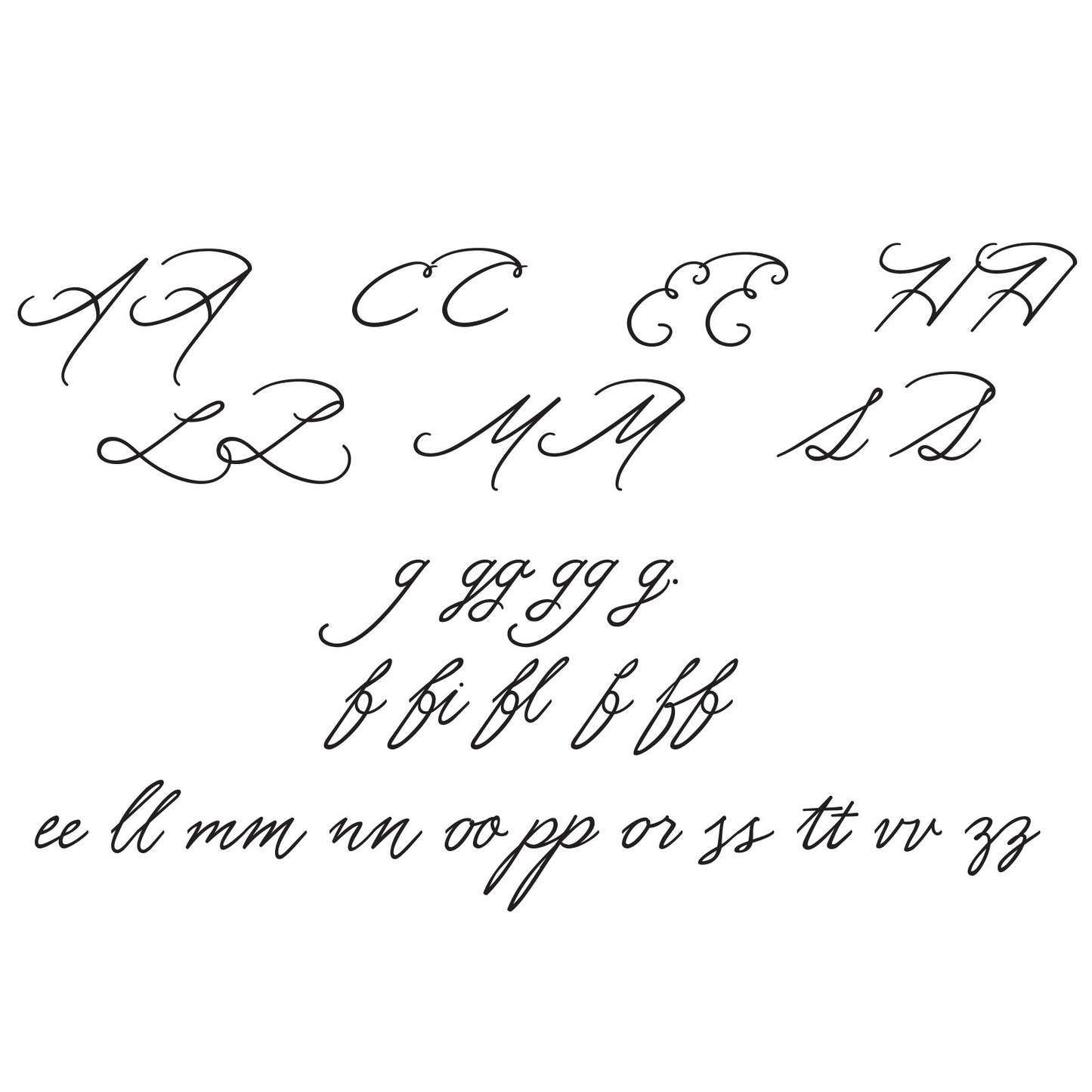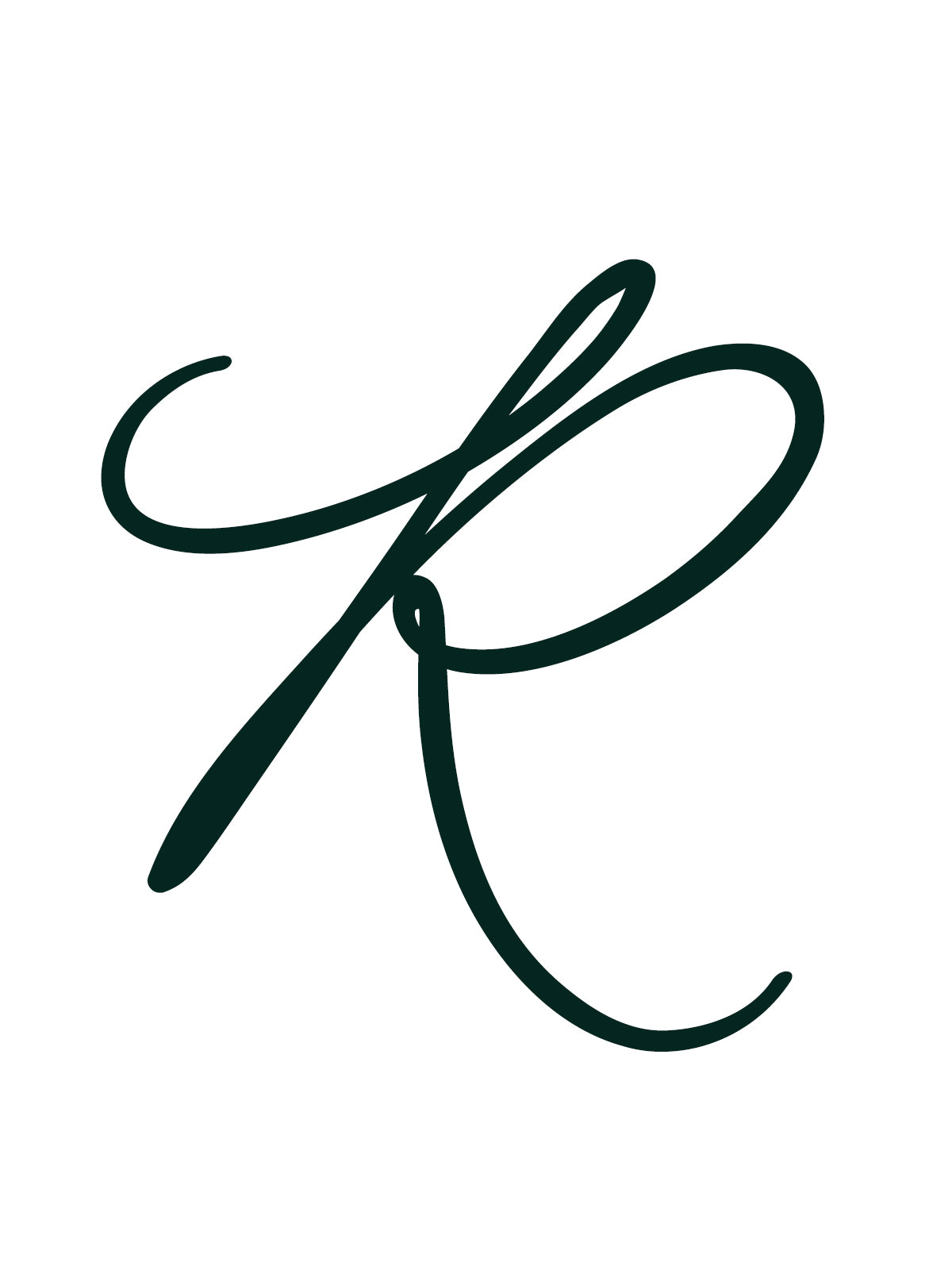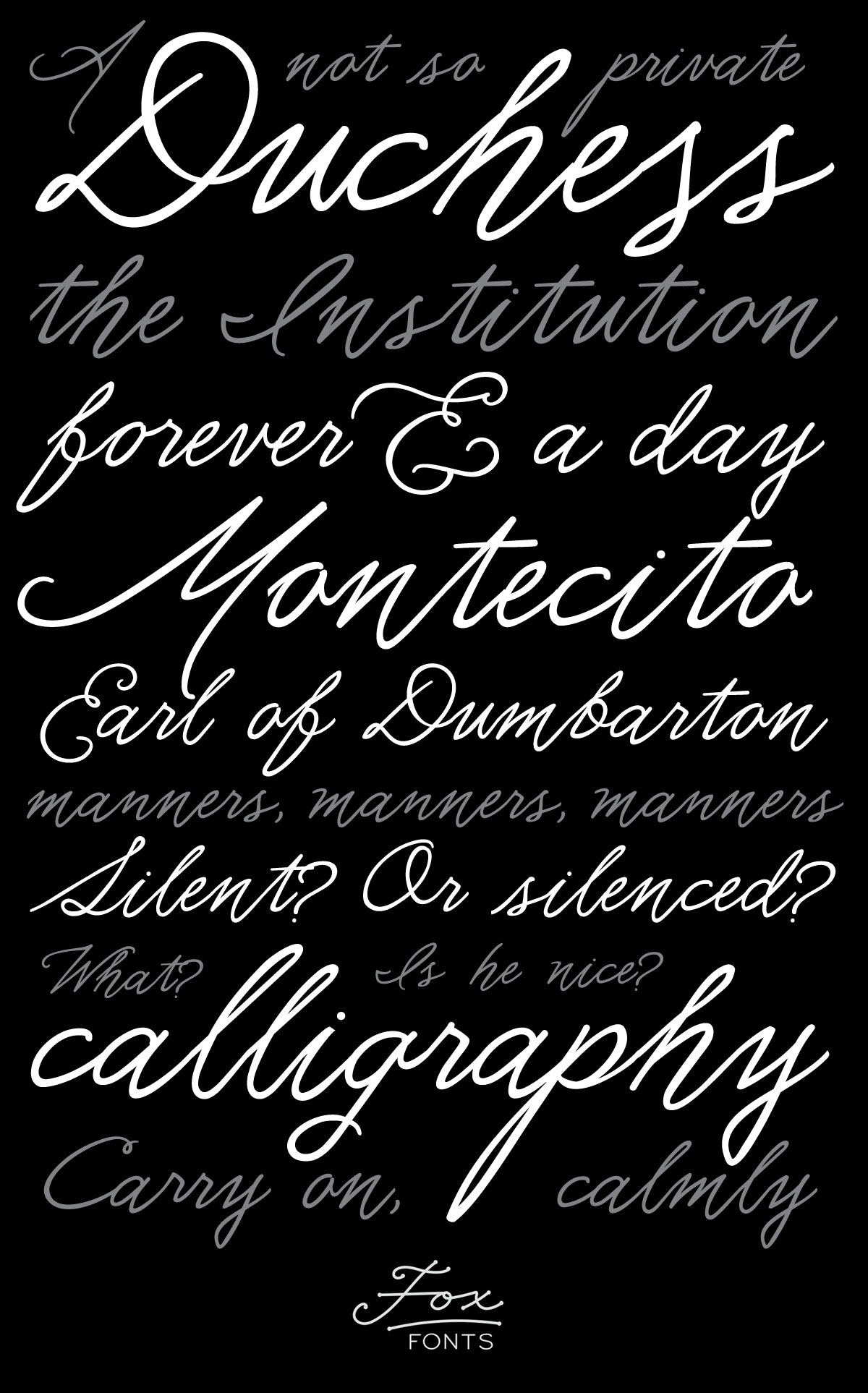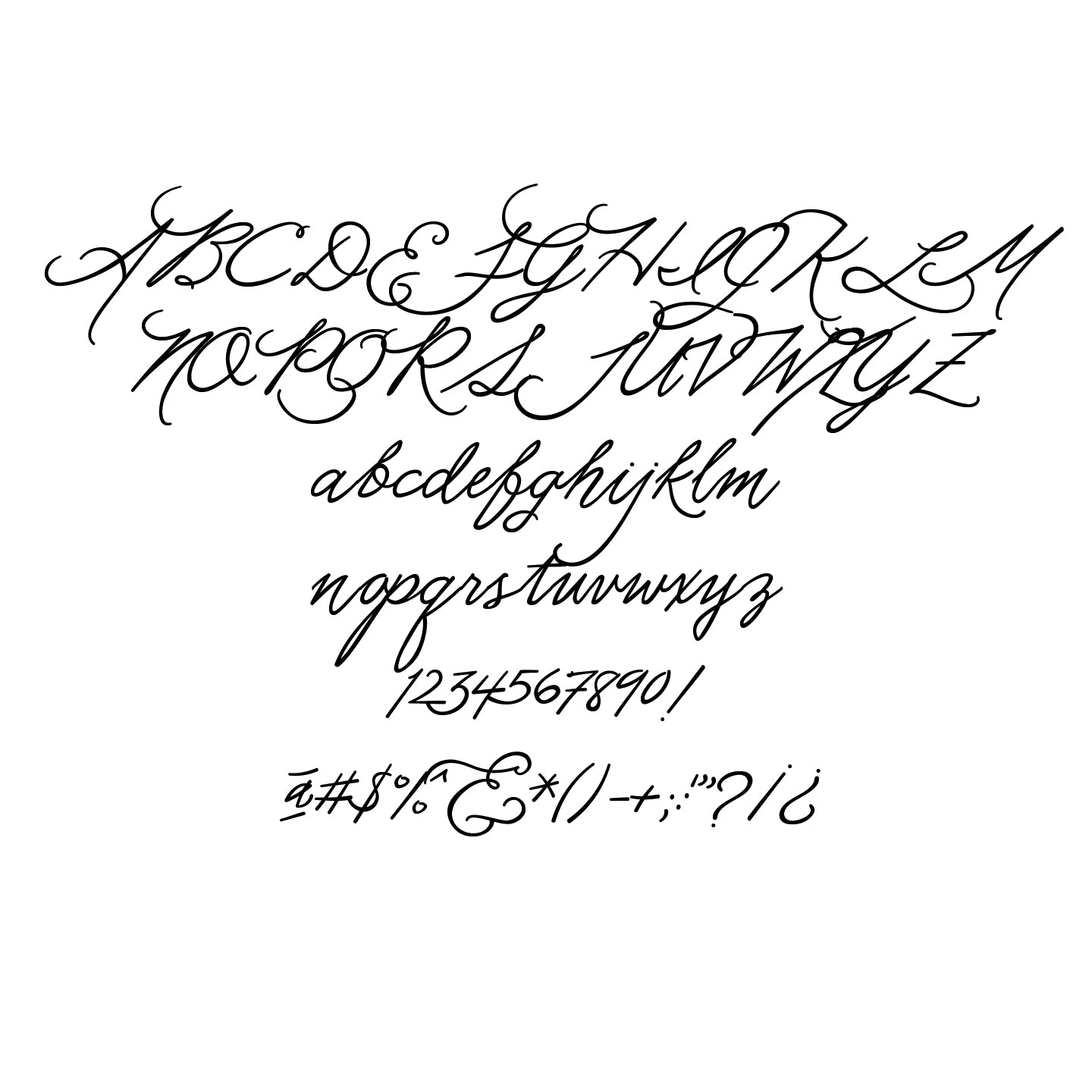
Meghan Jr
Inspired by the cursive of former royal Meghan Markle, this connected handwriting font includes ligature flourishes and contextual alternates—feminine, ornamental yet readable, but imperfect—for a highly custom feel. It’s a realistic hand script shortcut to custom-looking formal cursive.